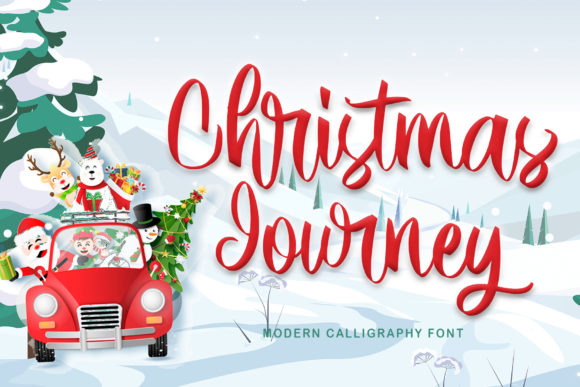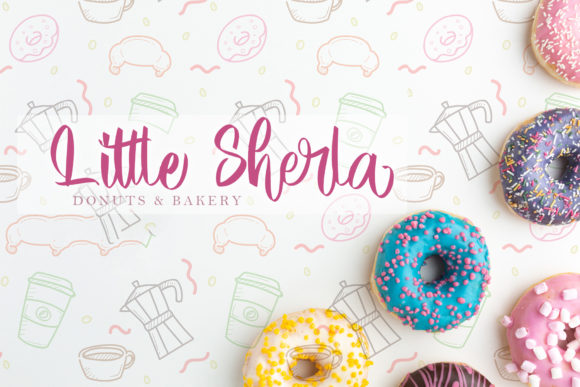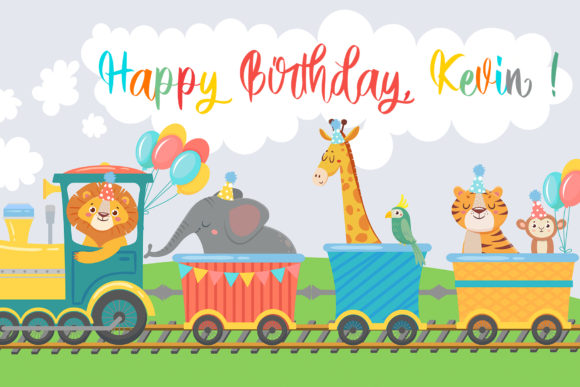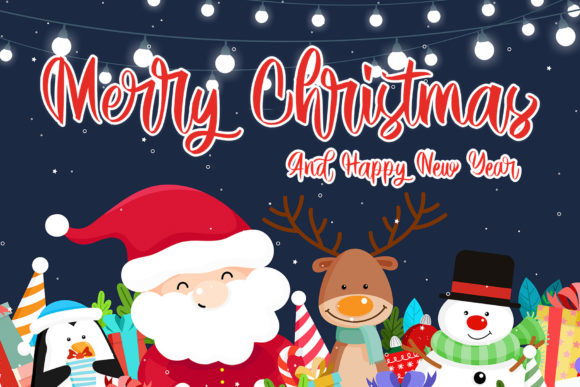
About Christmas Journey Font
Christmas Journey is a beautiful and natural handwritten font. It is ideal for holiday-themed greeting cards and for any crafting project that requires a romantic touch. This font is PUA encoded which means you can access all of the glyphs and swashes with ease!